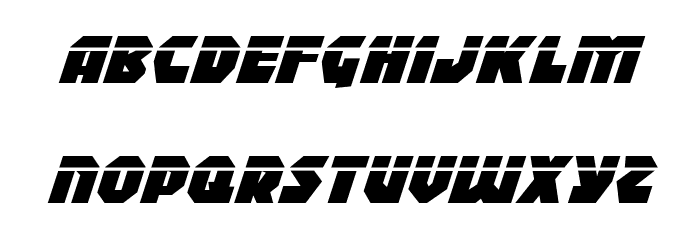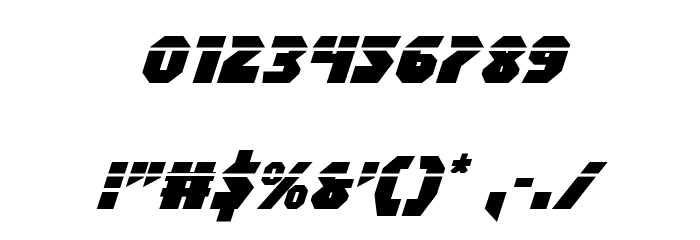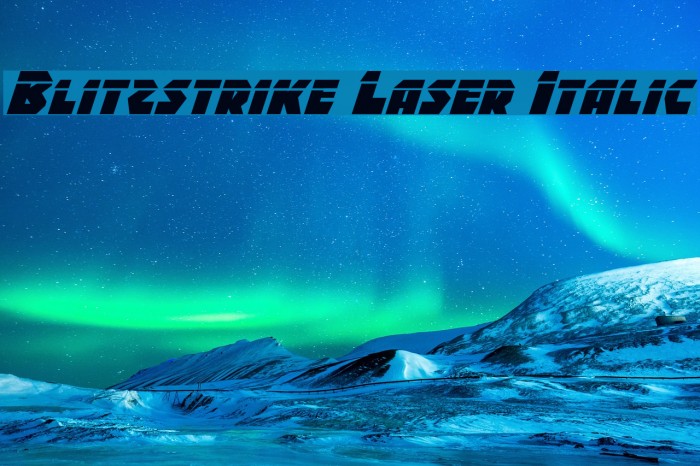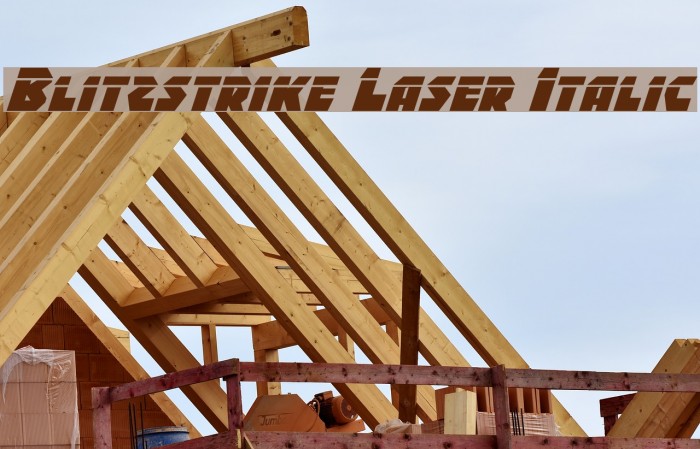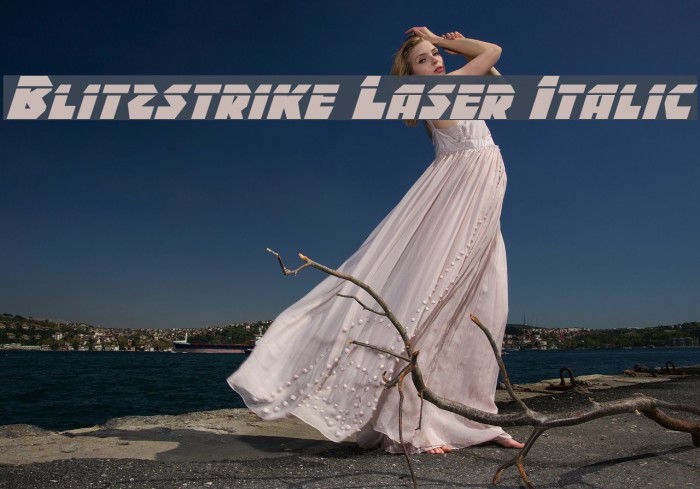
Blitzstrike Laser Italic Font
This font features a bold, angular design with a futuristic and dynamic appearance. The characters are sharply cut with a distinct italic slant, giving a sense of motion and energy. The uppercase and lowercase letters maintain a consistent geometric style, with thick strokes and sharp edges. Numbers and special characters follow the same design principles, ensuring uniformity across all glyphs. The font's aggressive and modern aesthetic makes it suitable for projects that require a strong visual impact.
A bold, angular, and italic font with a futuristic design.
- Proposed Projects: Ideal for sci-fi themed projects, video game titles, movie posters, and branding that requires a modern and energetic look.